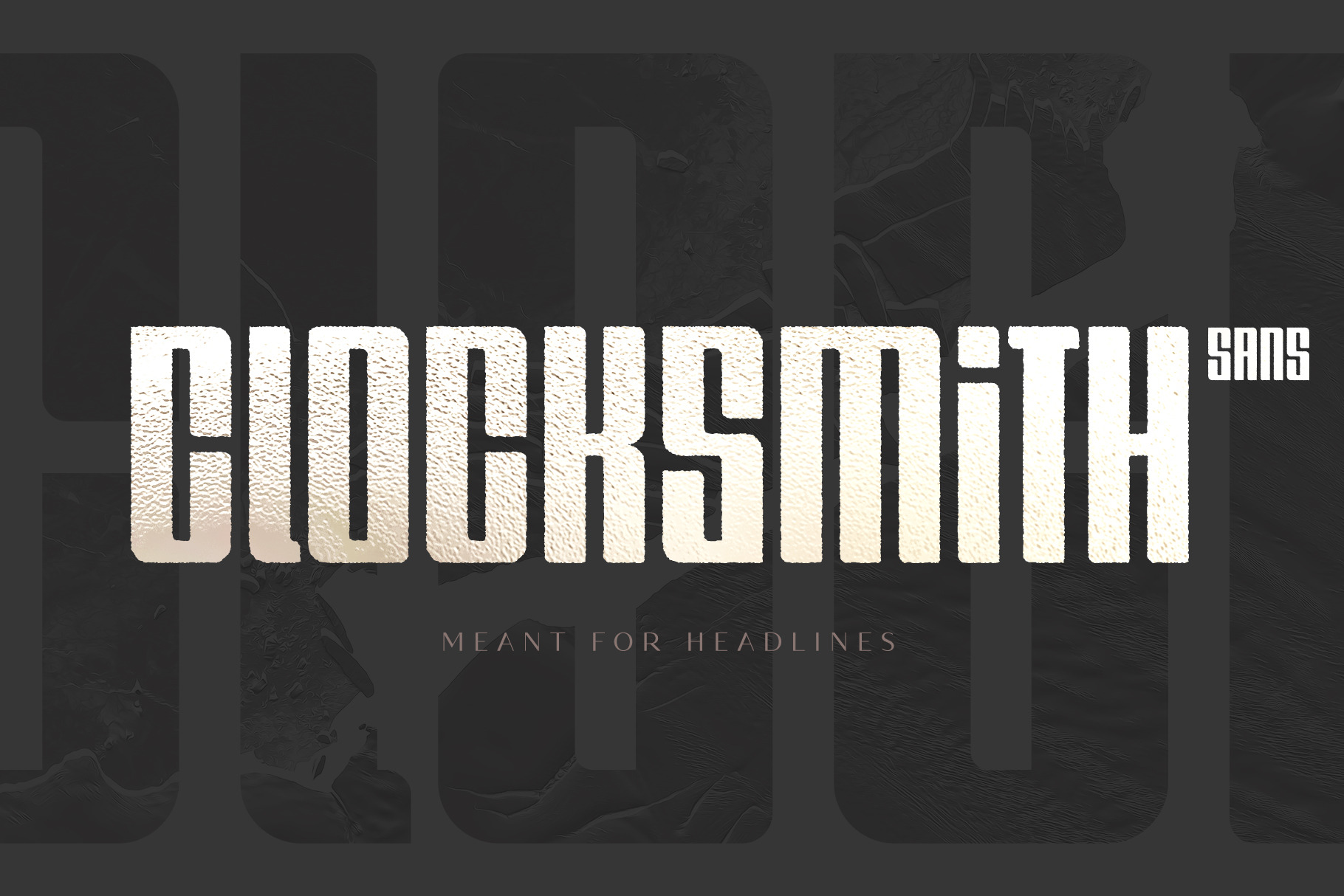
Clocksmith - Bold Display Font
Clocksmith is a bold display typeface with all-caps letters designed especially for headlines. It features 4 styles: Regular, Italic, Rough and Rough Italic.
- Uppercase letters
- 4 Styles